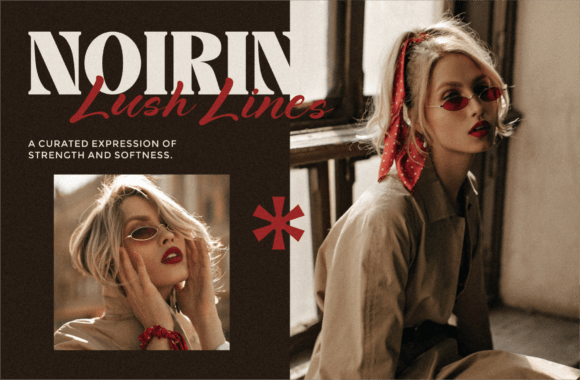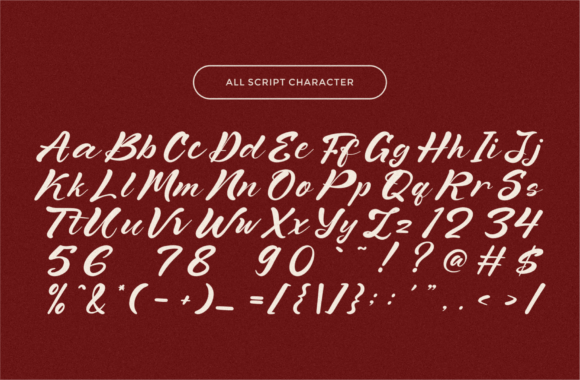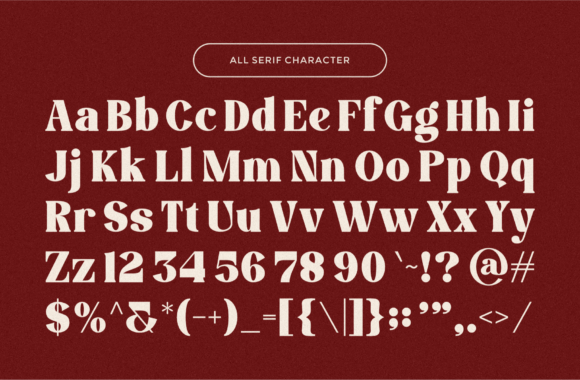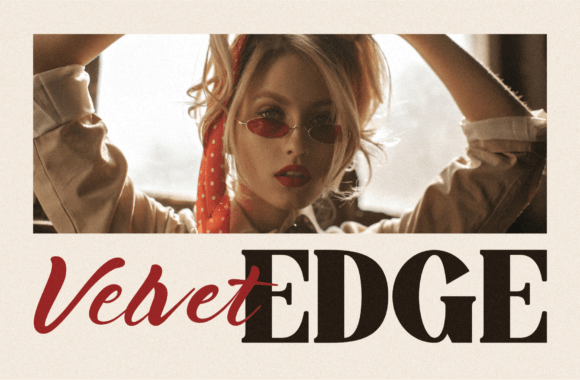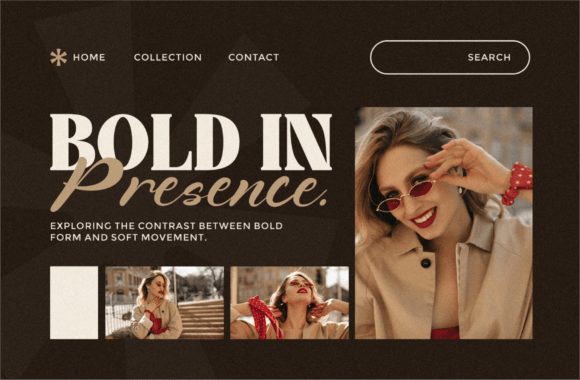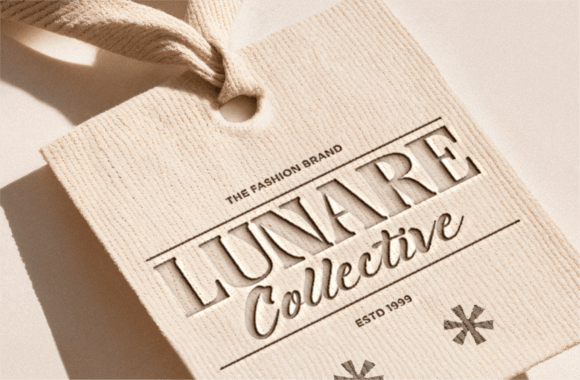
Introducing Endrip Faceo Duo Font: The Ultimate Pairing for Creative Expression
In the world of typography, finding the perfect font duo that combines style, versatility, and creativity can be a daunting task. However, look no further than the Endrip Faceo Duo Font, a thoughtfully designed pairing that brings together the best of both worlds: bold serif sophistication and smooth modern script charm. This exceptional duo is perfect for designers, crafters, and creatives looking to elevate their branding, packaging, editorial layouts, wedding invitations, social media design, and more.
The Perfect Pairing: Endrip and Faceo
The Endrip Faceo Duo Font consists of two distinct yet complementary fonts: Endrip, a hand-lettered script font, and Faceo, a bold classic serif font. Endrip is a flowing script that exudes warmth and personality, making it ideal for signatures, accents, and heartfelt messaging. Its smooth, cursive lines and fluid connections create a sense of movement and elegance, perfect for adding a touch of sophistication to any design.
On the other hand, Faceo is a bold, classic serif font with softly rounded edges, delivering strength with a refined edge. Its sturdy, confident lines make it perfect for headlines, logos, and monograms, where a strong presence is required. Faceo’s subtle rounded edges add a touch of warmth and approachability, balancing out its boldness and making it an excellent choice for designs that require both authority and friendliness.
Harmonious Balance: Tradition Meets Trend
When used together, Endrip and Faceo strike a harmonious balance between tradition and trend, elegance and ease. This versatile duo adapts effortlessly to both formal and playful design settings, making it an excellent choice for a wide range of creative projects. Whether you’re designing a wedding invitation, a brand logo, or a social media post, the Endrip Faceo Duo Font provides the perfect combination of style and flexibility.
- Hand-lettered Script: Endrip’s hand-lettered script font adds a touch of warmth and personality to any design.
- Bold Classic Serif: Faceo’s bold classic serif font delivers strength with a refined edge, perfect for headlines, logos, and monograms.
- Versatility: The Endrip Faceo Duo Font is suitable for a wide range of creative projects, from branding and packaging to editorial layouts, wedding invitations, and social media design.
Design Possibilities
The Endrip Faceo Duo Font offers endless design possibilities, limited only by your imagination. Here are a few ideas to get you started:
- Branding and Packaging: Use Endrip and Faceo to create a cohesive brand identity that exudes elegance and sophistication.
- Wedding Invitations: Combine Endrip’s flowing script with Faceo’s bold serif to create beautiful, memorable wedding invitations.
- Editorial Layouts: Use Faceo’s bold lines and Endrip’s smooth script to create stunning editorial layouts that capture readers’ attention.
- Social Media Design: Add a touch of personality to your social media posts with Endrip’s hand-lettered script and Faceo’s bold classic serif.
In conclusion, the Endrip Faceo Duo Font is an exceptional pairing that offers a unique combination of style, versatility, and creativity. With its harmonious balance of tradition and trend, elegance and ease, this font duo is perfect for designers, crafters, and creatives looking to elevate their designs. Whether you’re working on a branding project, wedding invitation, or social media post, the Endrip Faceo Duo Font is the ultimate choice for creative expression.